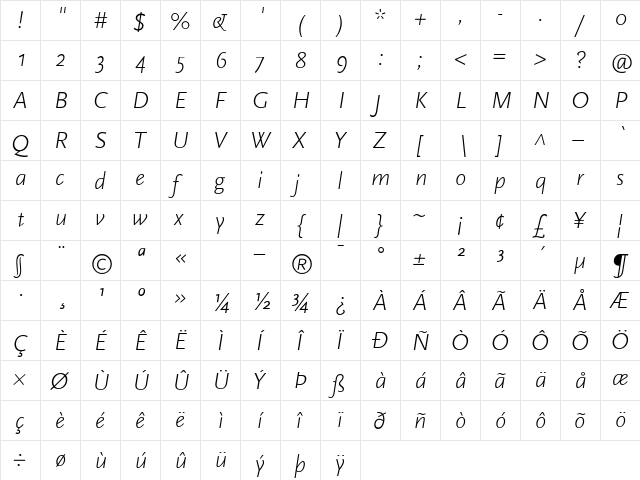
ScalaSans LightItalic Font Preview
Design Context for ScalaSans Typeface
ScalaSans takes a measured approach to typography — its balanced proportions and neutral character make it a reliable workhorse for both digital and print work. The slanted form adds forward momentum and visual energy. The delicate stroke weight brings airiness and refinement to layouts.
Pro Tip: Try ScalaSans for annotation and caption copy alongside an upright companion — the contrast in angle creates a dynamic but ordered typographic system.